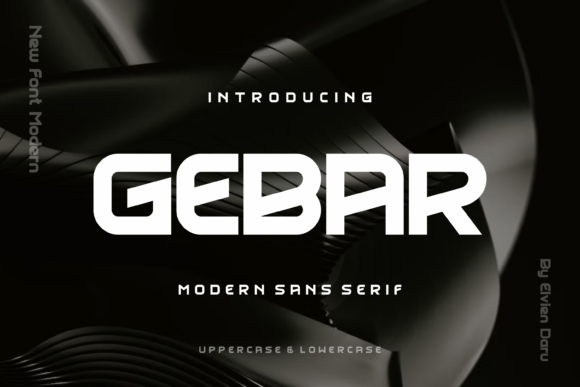
Unleash the Power of Expression with Gebar: The Bold and Assertive Sans Serif Font
In a world of monotonous fonts, Gebar emerges as a bold and assertive sans serif font, ready to transform your creative visions into captivating realities. Let your words dance with confidence and distinction as they adorn the digital canvas, leaving an unforgettable impression on your audience.
Gebar is not just a font; it's an artistic statement that reflects your unique personality and style. Its sharp edges and clean lines exude a sense of modernity and sophistication, making it the perfect choice for those who dare to be different. Whether you're crafting a stunning resume, designing an eye-catching logo, or creating captivating social media posts, Gebar will elevate your designs to new heights.
With Gebar, you'll discover a font that's as versatile as your imagination. Its bold strokes and dynamic curves lend themselves effortlessly to a wide range of creative projects, from minimalist layouts to intricate typography. Unleash your creativity and let Gebar guide you to design masterpieces that leave a lasting impact.
Step into the spotlight with Gebar and watch as your words command attention. Its assertive presence ensures that your message will never be overlooked, whether you're crafting a persuasive business proposal or sharing your heartfelt thoughts in a personal blog. Gebar is the ultimate font for those who want to make a statement and leave a lasting impression.
Join the ranks of creative professionals, entrepreneurs, and design enthusiasts who have discovered the power of Gebar. Let this remarkable font elevate your creative projects and unlock a world of possibilities. Embrace the boldness of Gebar and watch as your designs transform into captivating masterpieces that speak volumes about your unique style and vision.